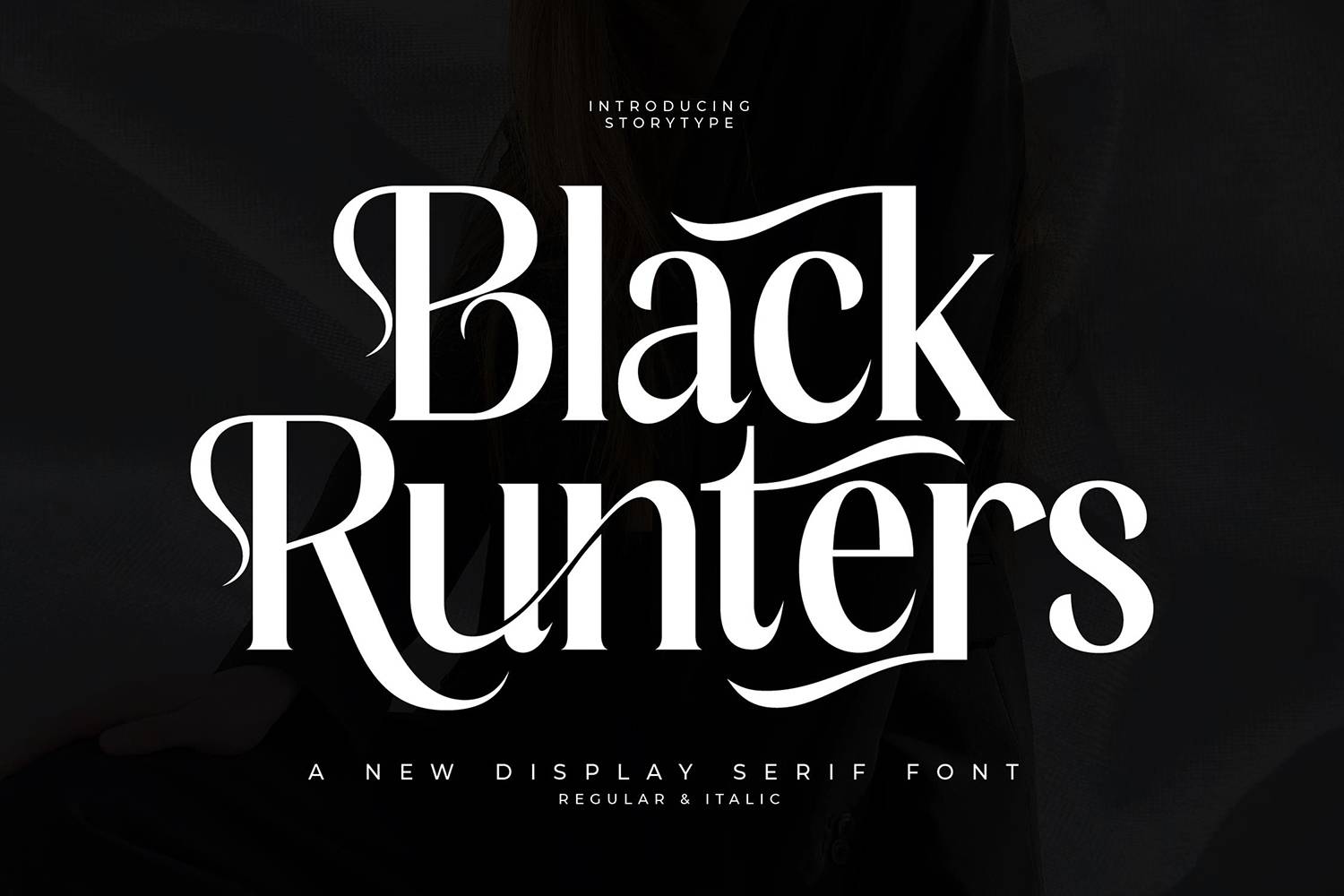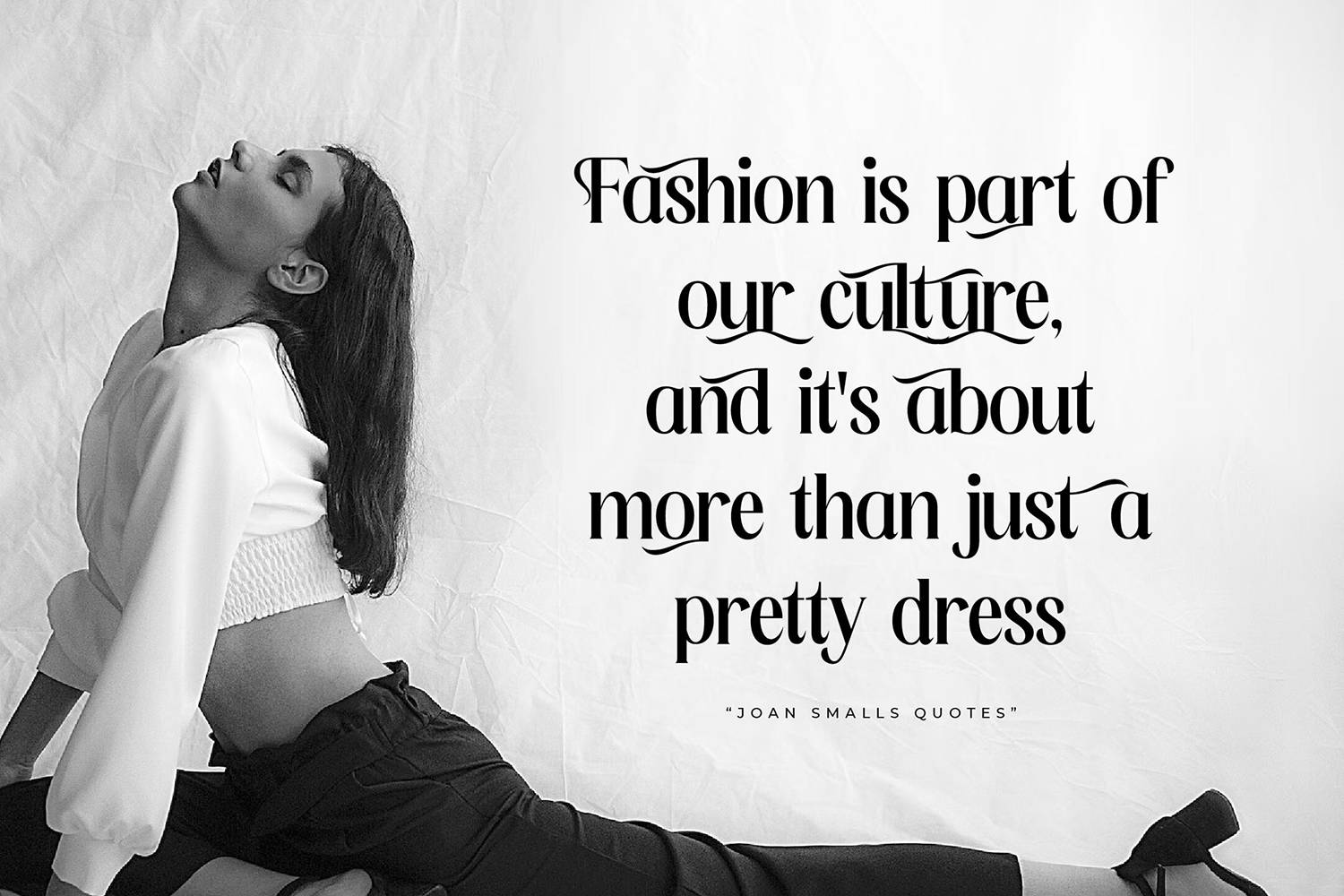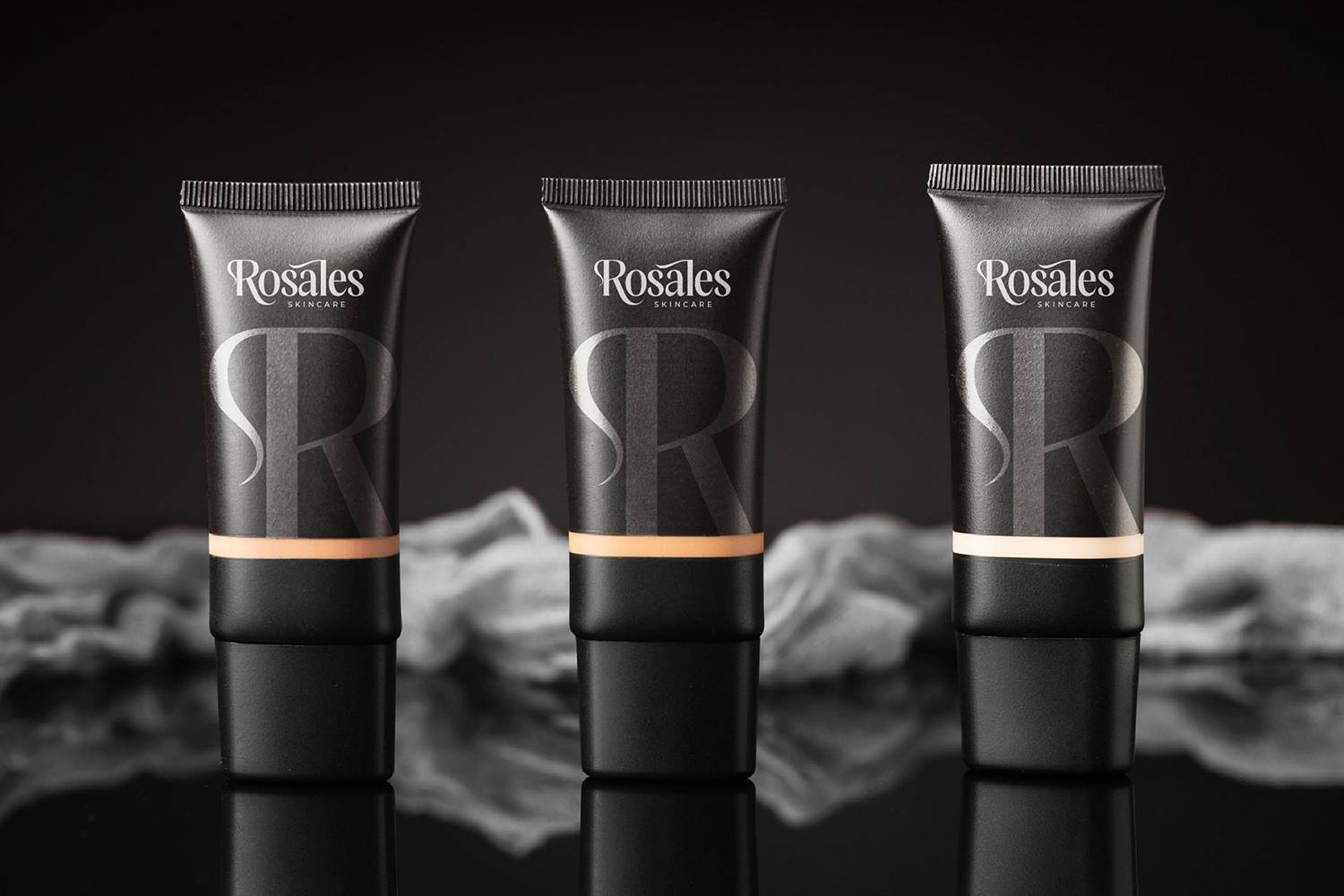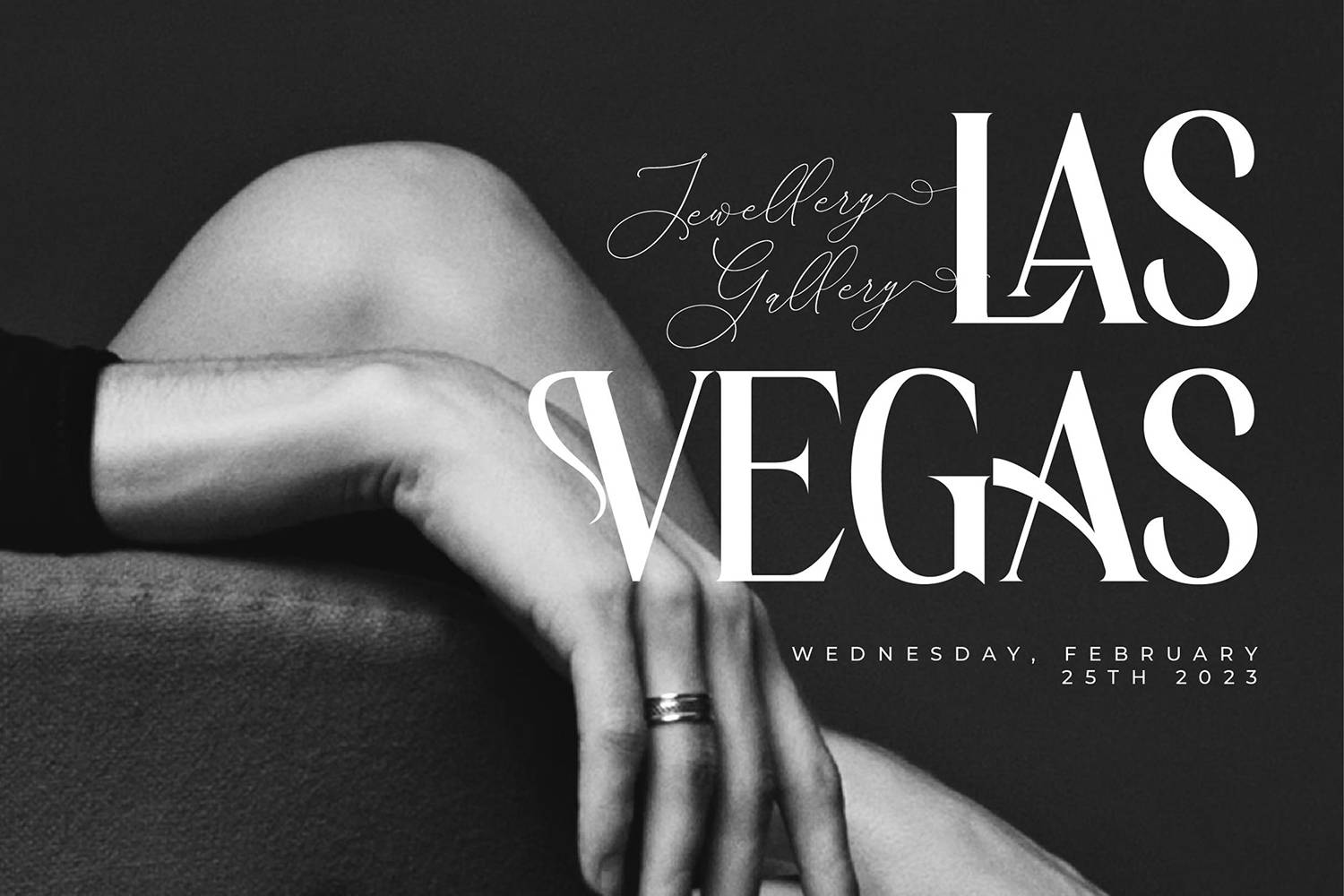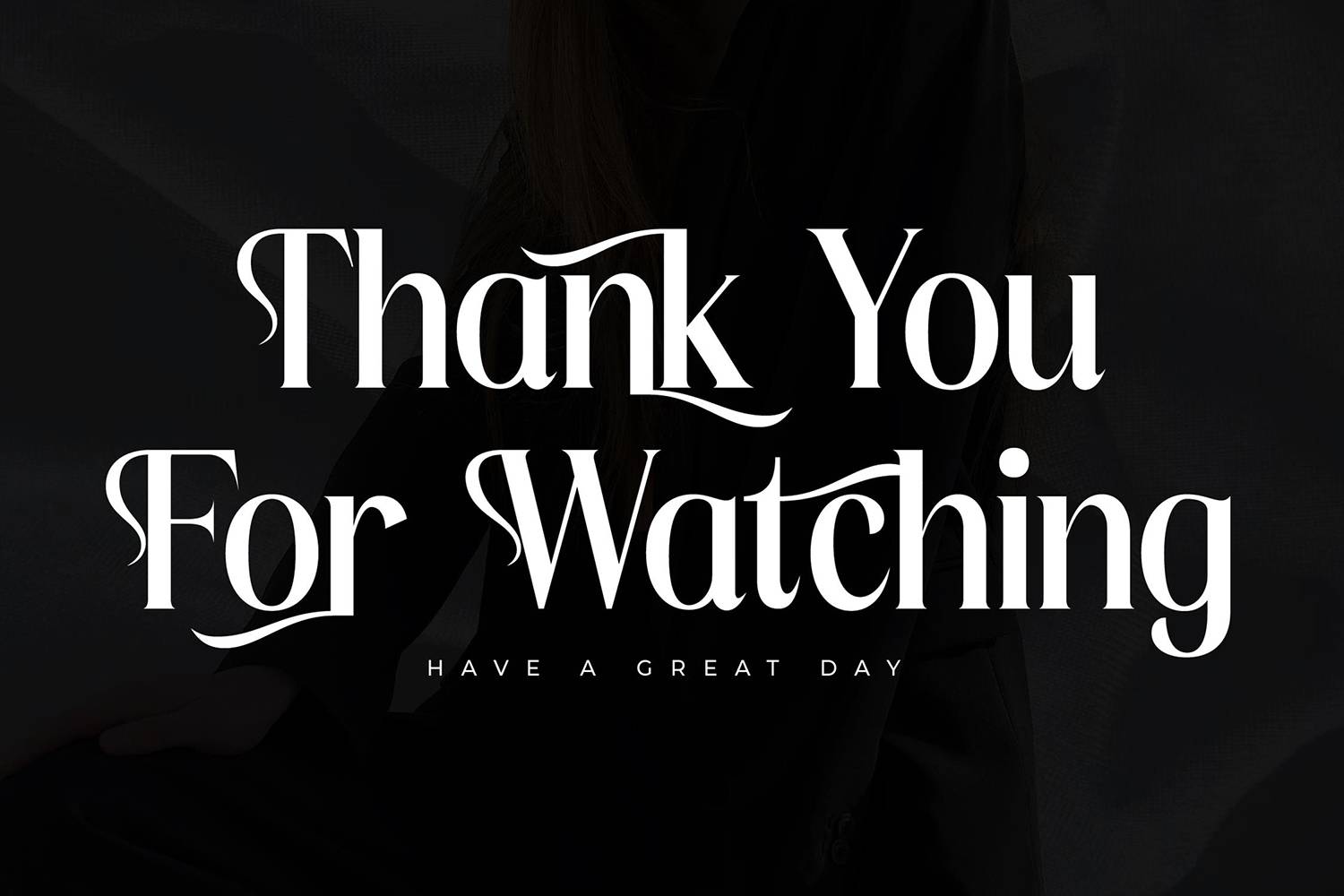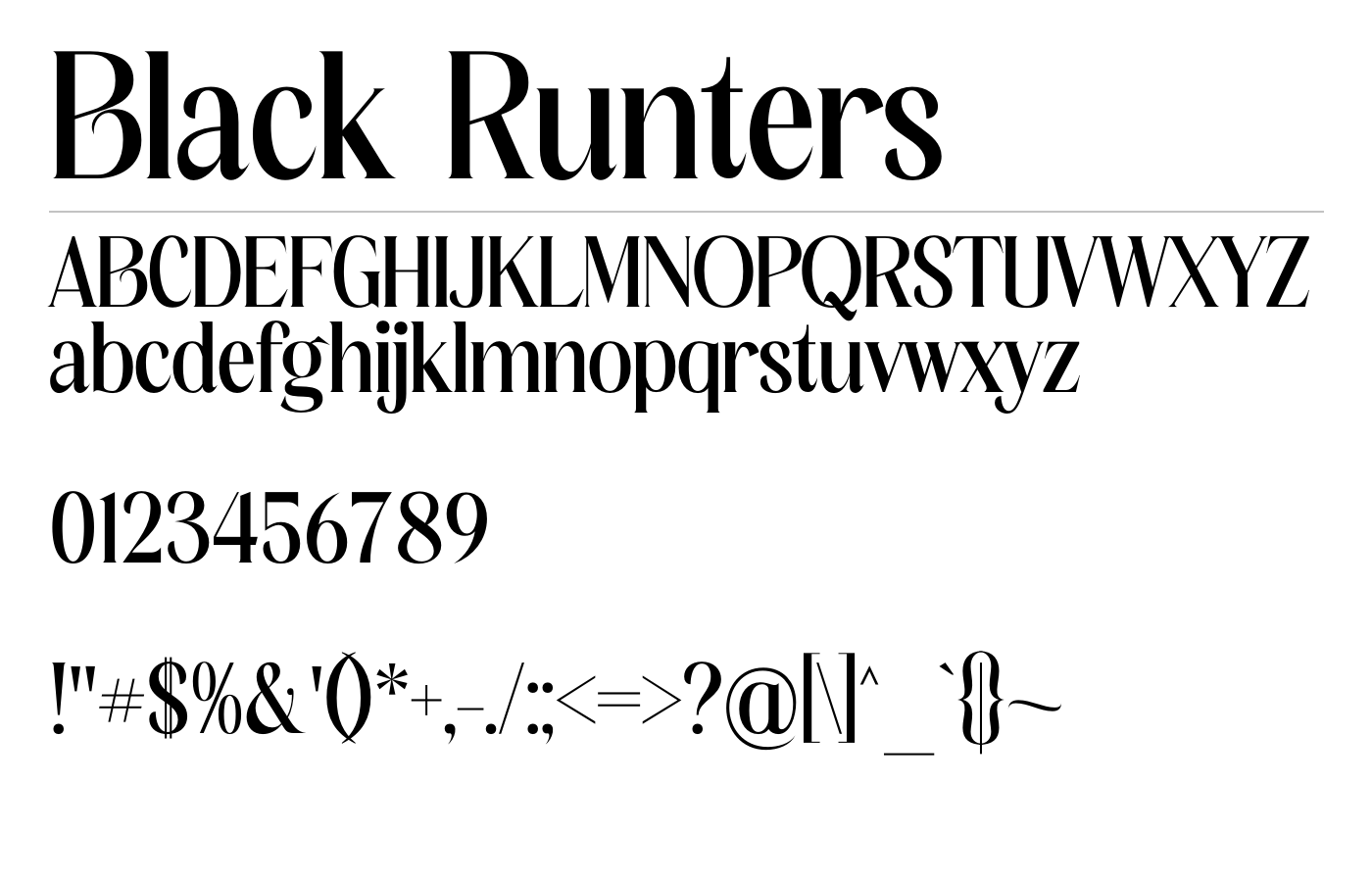
Black Runters is a sophisticated serif font with a modern flair, featuring tall, elegant letterforms and high contrast between thick and thin strokes. Its narrow width and refined details create a stylish and upscale appearance, making it ideal for fashion branding, editorial headlines, and luxury packaging. This font combines classic elegance with contemporary sharpness, perfect for designs seeking a graceful yet impactful presence.
Black Runters Font
About Black Runters Font